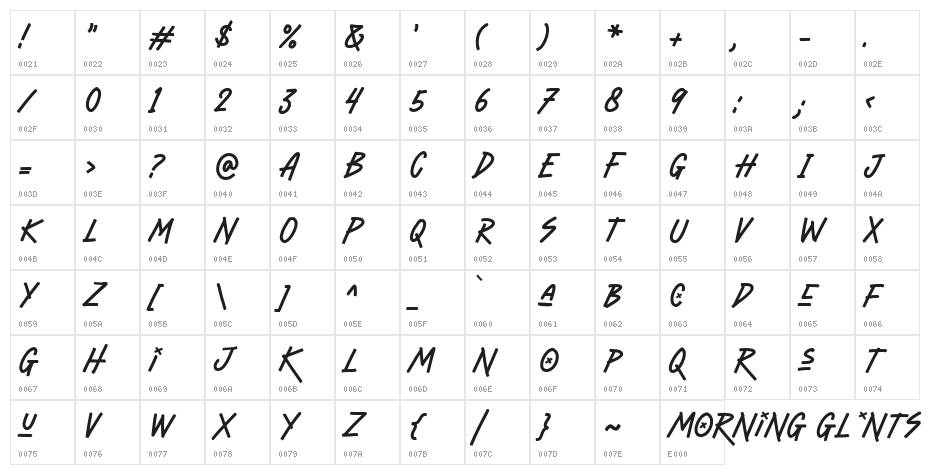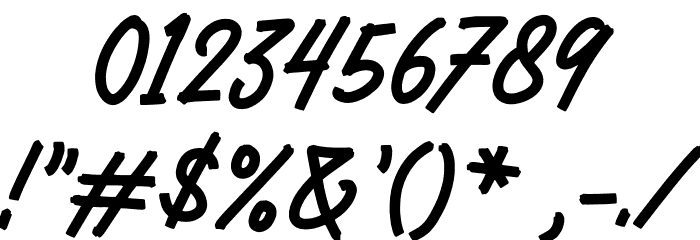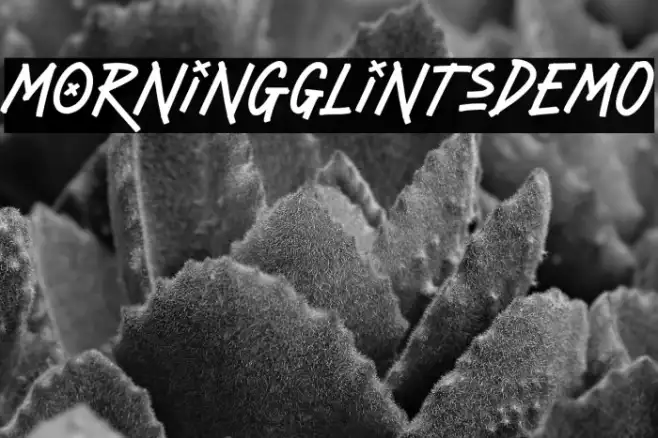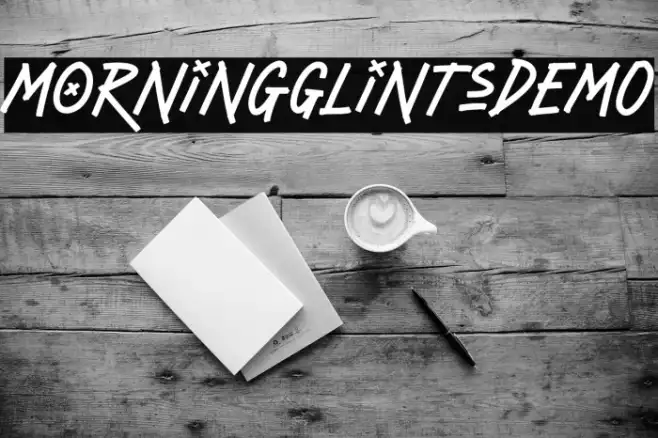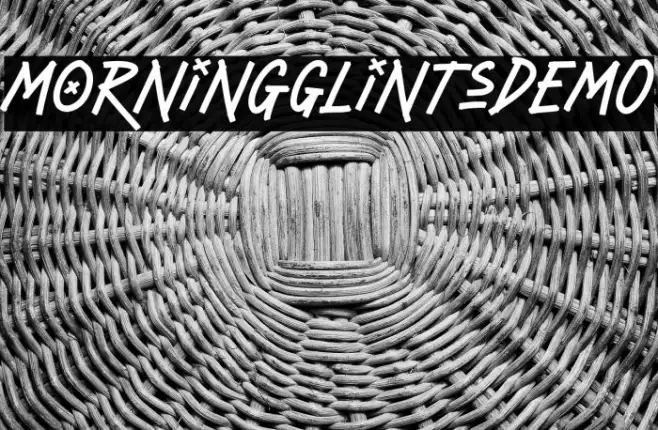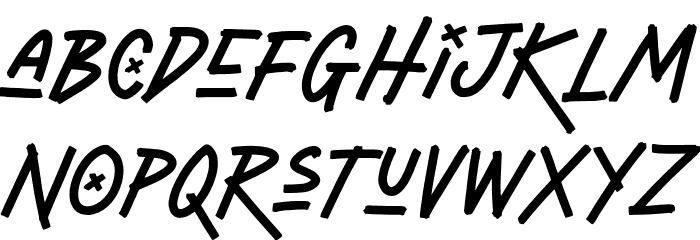
MorningGlintsDEMO Font
MorningGlintsDEMO Description
This font exhibits a dynamic and energetic handwritten style, characterized by its bold and slightly slanted letterforms. The uppercase and lowercase letters maintain a consistent flow, with a playful yet legible appearance. The strokes are thick and confident, giving each character a strong presence. The numerals and special characters follow the same stylistic approach, ensuring uniformity across all glyphs. The font's overall look is casual and approachable, making it suitable for projects that require a personal touch. Its unique flair is enhanced by the slight variations in stroke angles and the occasional use of decorative elements, such as stars within certain letters.
| Proposed Projects | Ideal for branding, posters, greeting cards, and social media graphics. |